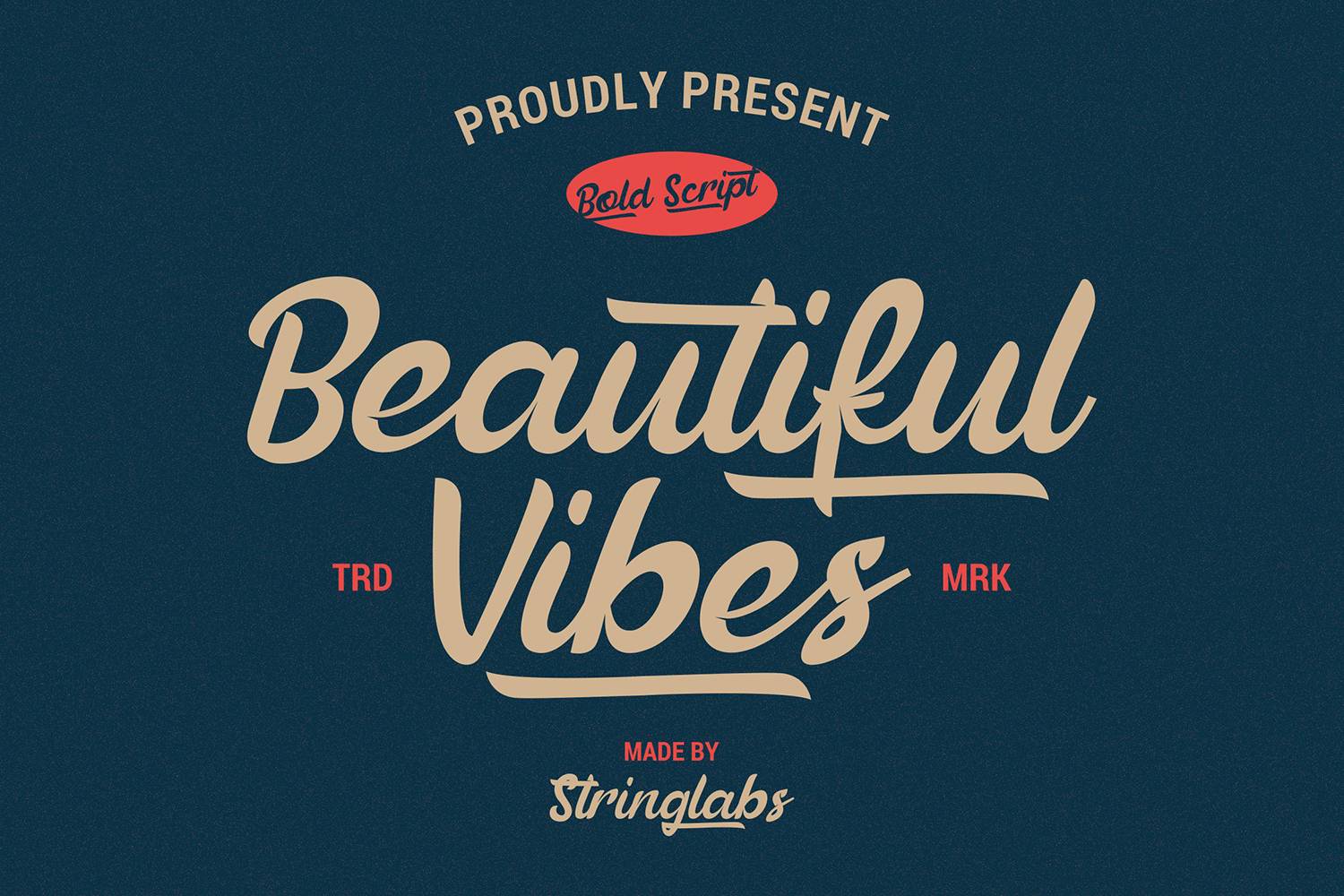
Beautiful Vibes is a lively script font with a casual yet polished feel, featuring smooth, flowing letterforms and a medium weight that offers good readability. Its slightly slanted, connected characters with elegant curves make it perfect for projects that want to convey warmth, friendliness, and a touch of sophistication. This font works wonderfully for branding, invitations, social media, and packaging where a personal and stylish vibe is desired.
Beautiful Vibes Font
About Beautiful Vibes Font
| Font family | Beautiful Vibes Font |
| Designer | Stringlabs |